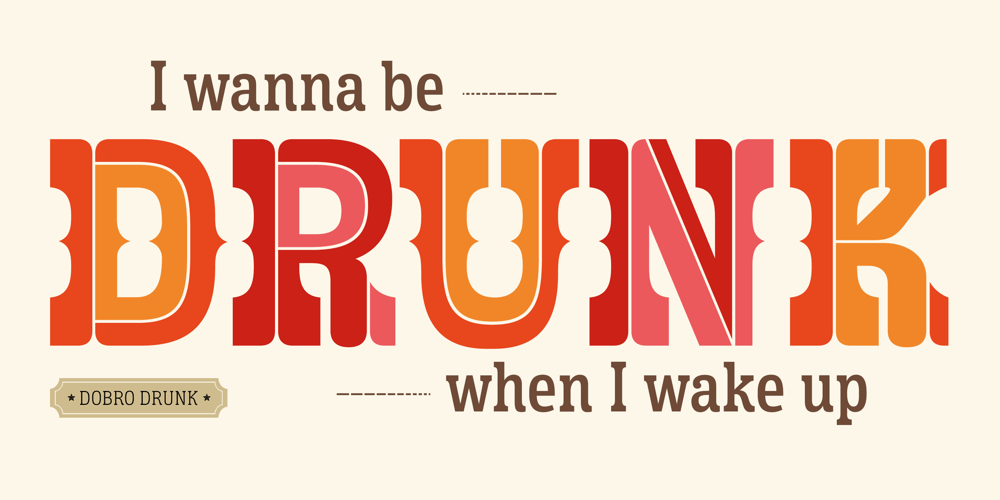
Dobro
Dobro font
Dobro Font Family was designed by Mariana Alen and published by Sudtipos. Dobro contains 7 styles and family package options. Strings vibrating against wood. Counterpoints. Strong beated rhythms and smooth flexible melodies. Repetitive sequences and syncopations. Sweeps and slides. Folk and tradition. That’s how Dobro sounds. Inspired by the spirit of bluegrass music and the aesthetic of its wood type gig posters,this typeface explores certain concepts of rhythm and seeks to translate a piece of this universe into writing. Meant to be used in large sizes, Dobro is a 6-font set designed to work nicely together. It comes in 4 different weights, one color font with miscellaneous and connectors, plus frames and borders that pay tribute to vintage wood type catalogues. As an old company motto used to say: “Dobro means good in any language!” ––––––––––––––––––– IMPORTANT INFO ––––––––––––––––––– When you license Dobro you will download a pack with OpenType fonts but also a Color Font version of Dobro Drunk. (To use color fonts Photoshop CC 2017 /2018, Illustrator CC 2018 or QuarkXpress 2018 is required). If you create outlines in illustrator you can also modify the colors! Dobro Drunk BW OTF font (works like any font but is black & white.) Web files are only black and white until browsers support color fonts.